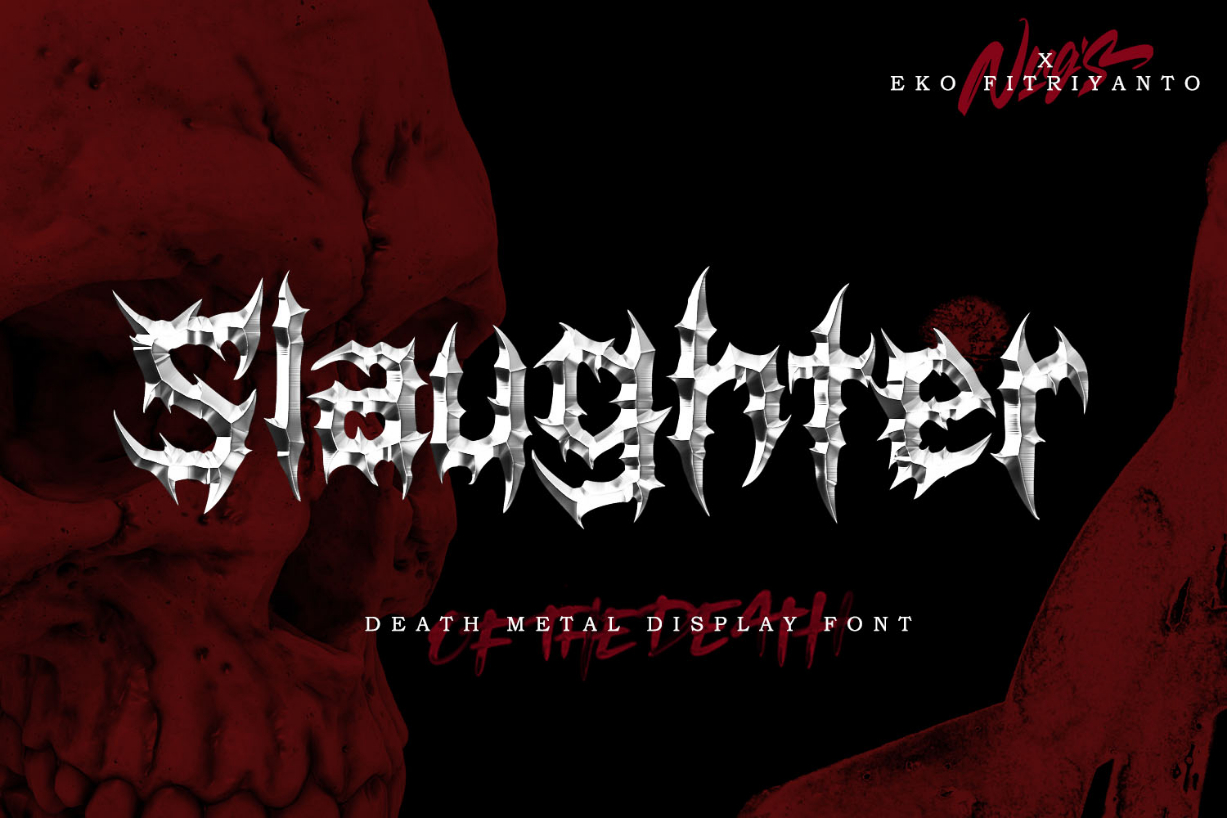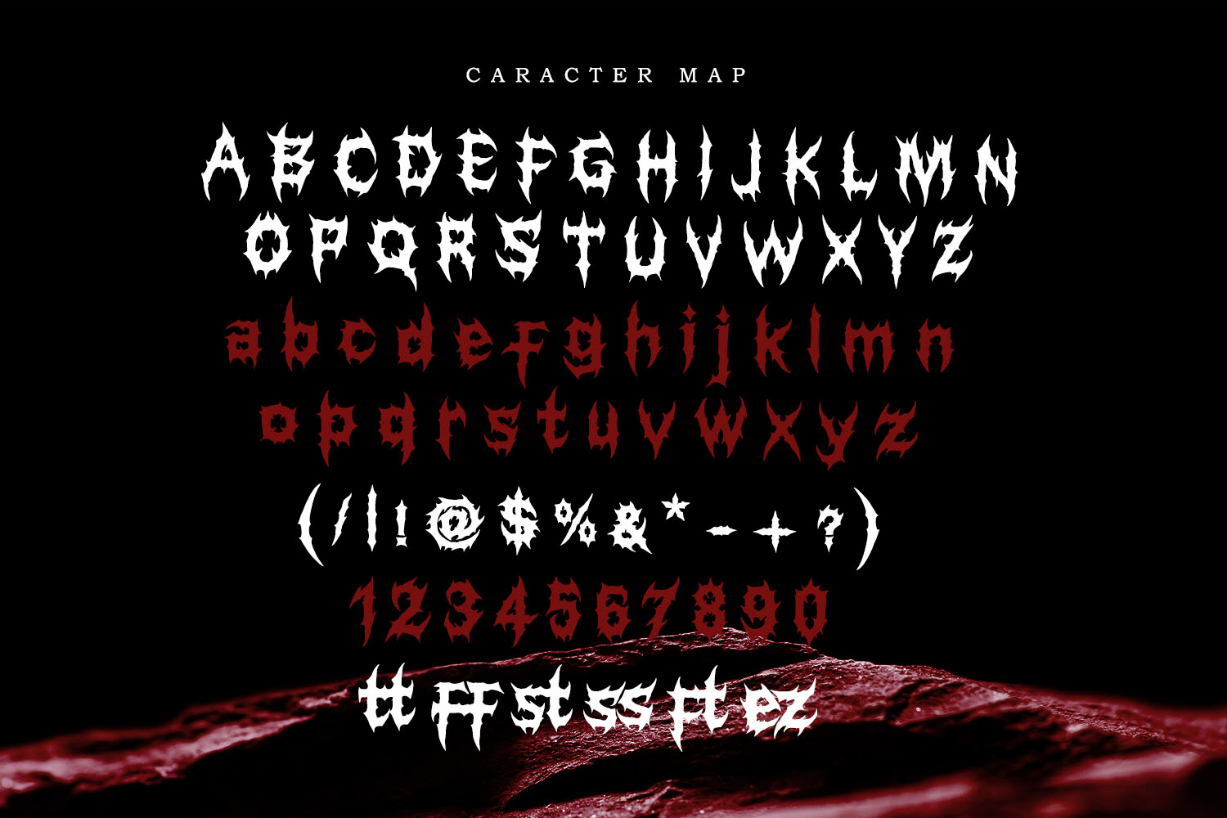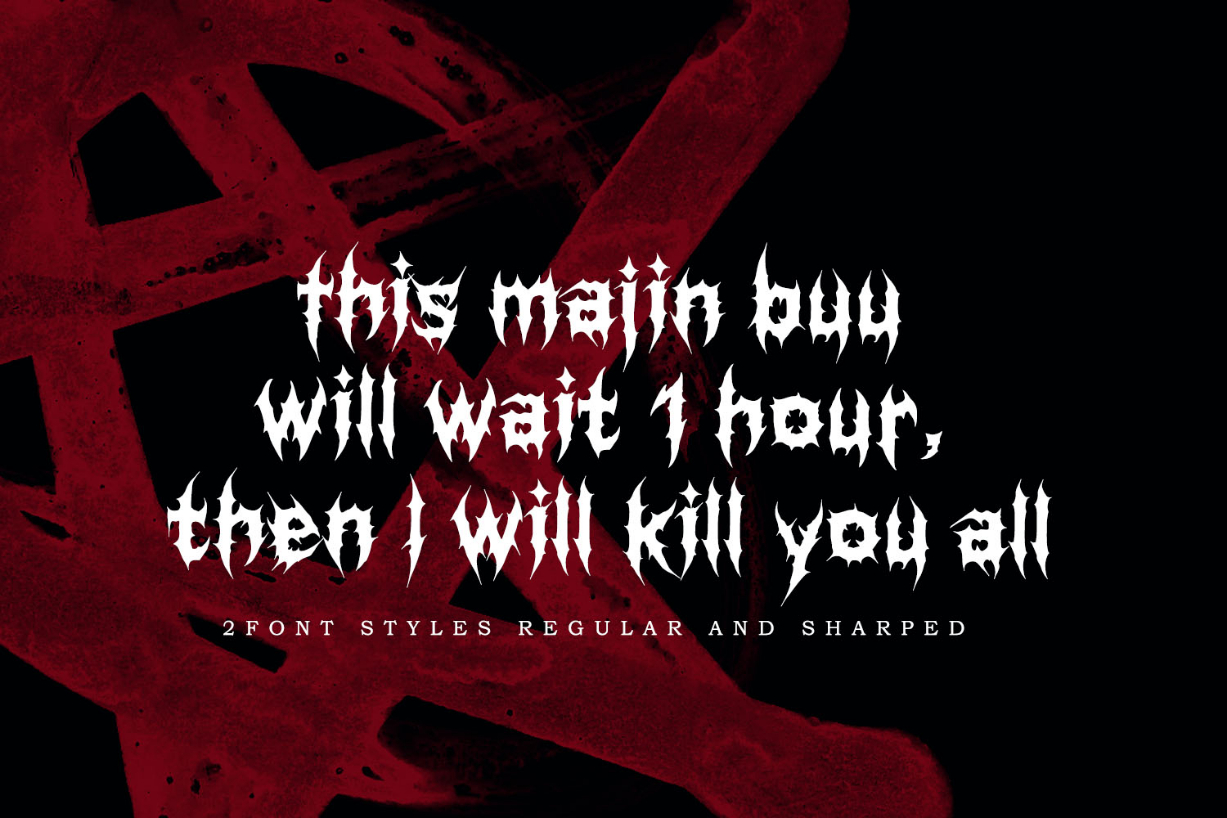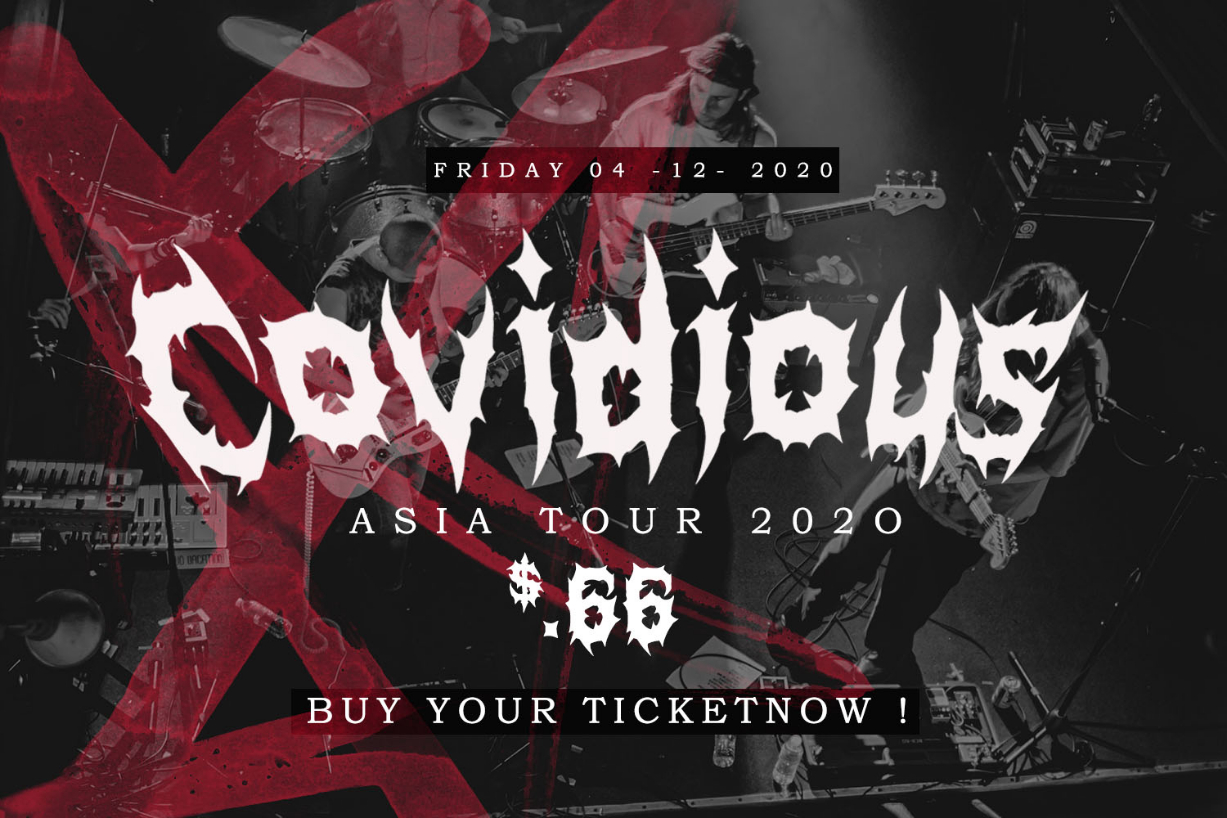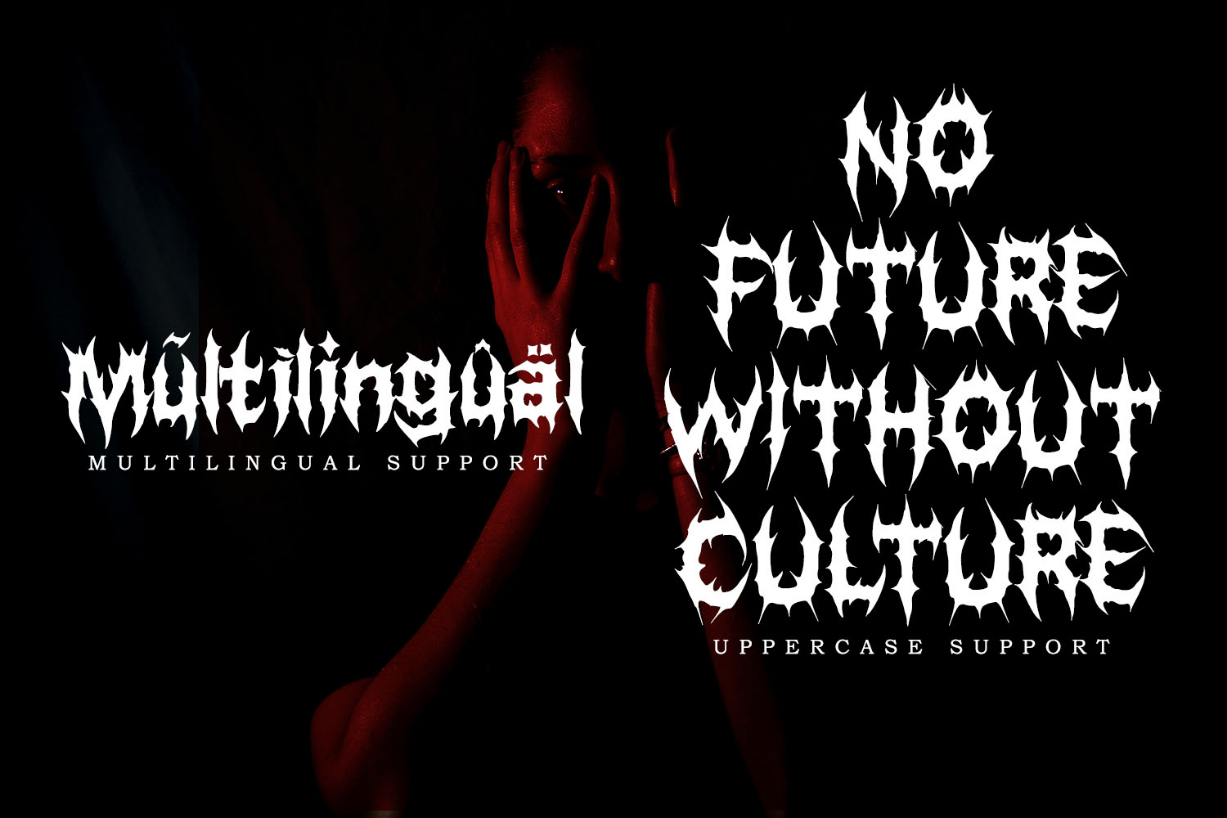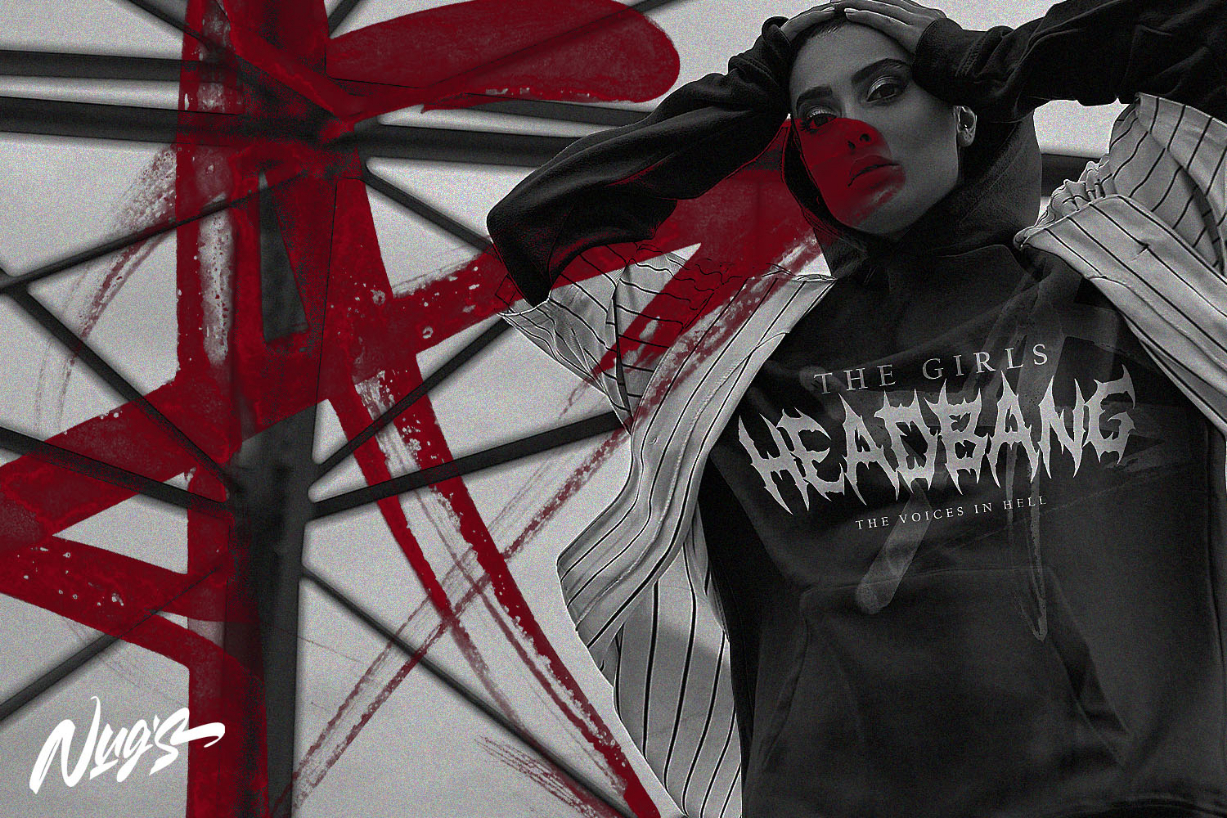
Slaughter Font
About Slaughter Font
Slaughter is a bold and dramatic looking blackletter font. It has a creepy, horror style and it will make each of your design ideas stand out.